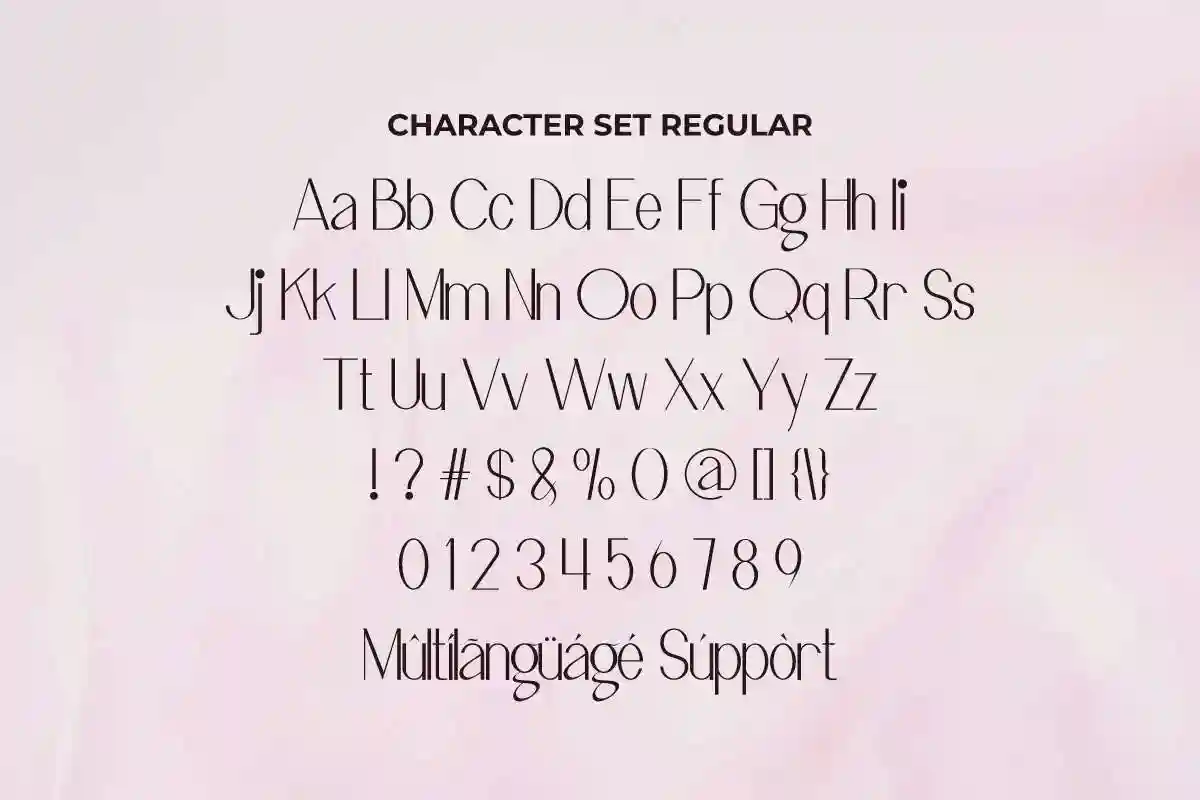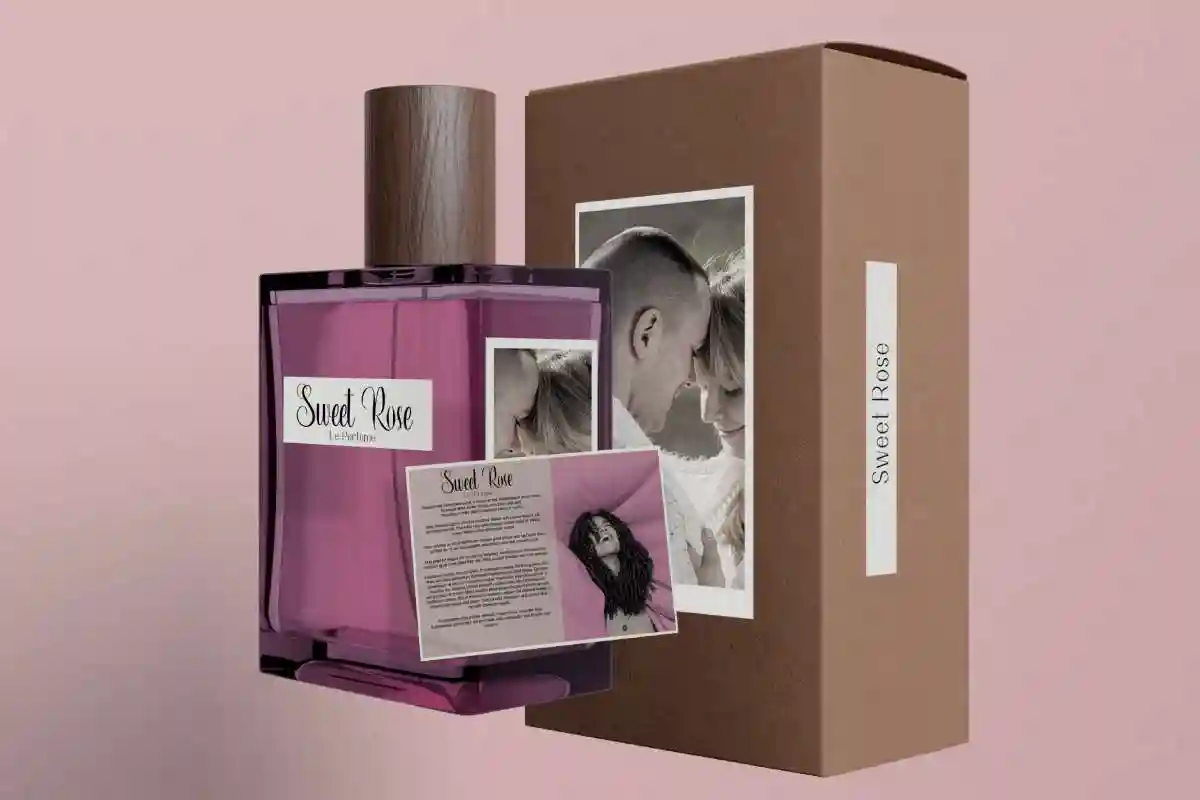
Beautiful Good is a two perfect combination fonts designed by NoahType. The font has two different styles, calligraphy and modern sans display to bring out the perfect style, elegant, feminine and easy to read. These two will be amazing for many projects : billboard, blog headers, brochure, business card, company sign, creating logo, headline, invitation, magazine design, product packaging, quotes, tote bag custom and more.
Looking for the perfect font combination to elevate your design projects? Introducing Beautiful Good Font Duo – a charming and modern pairing of a sleek serif font and a stylish handwritten script.
Whether you’re designing a brand logo, wedding invitation, social media post, product packaging, or a trendy website header, Beautiful Good Font Duo gives your text a refined and authentic look. The clean serif adds professionalism and readability, while the handwritten script brings warmth and creativity — a match made in typographic heaven.
A classic Serif Font for structure and clarity
A flowing Handwritten Script for personality and flair
Uppercase, Lowercase, Numerals, Punctuation & Ligatures
Perfect for logos, posters, branding, quotes, and more
Beautiful Good Font includes full set of Uppercase and Lowercase Basic Characters, Numerals and Punctuation. Also it contains ligatures and swoosh it will be stunning for any business such as, beauty product, cooking class, craft, events, fashion, jewelry, perfume, spa and salon, wedding, and many more.